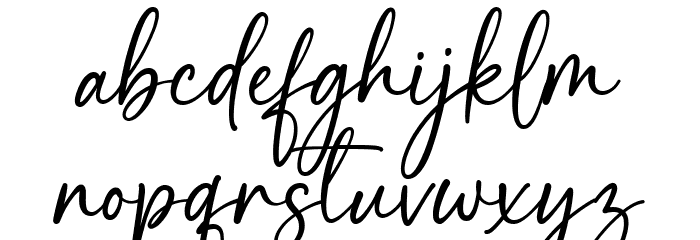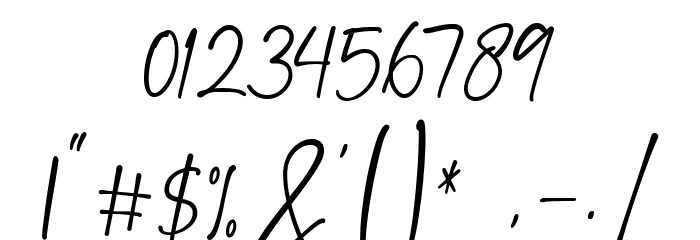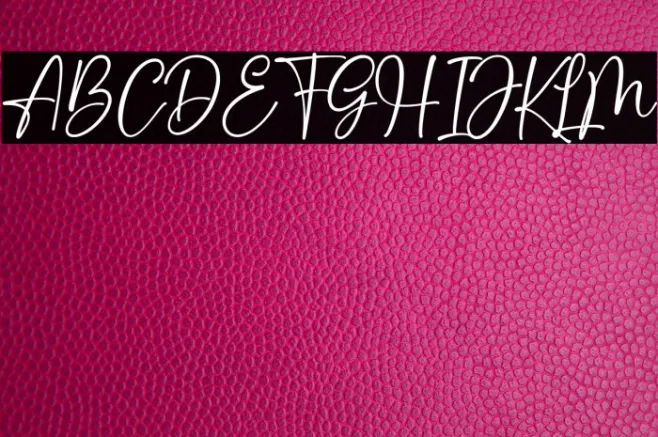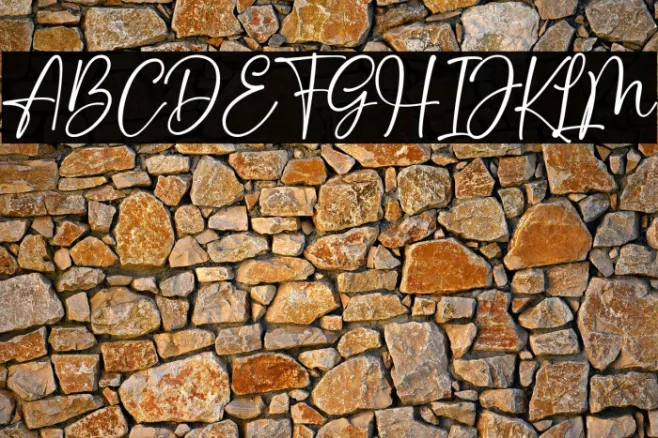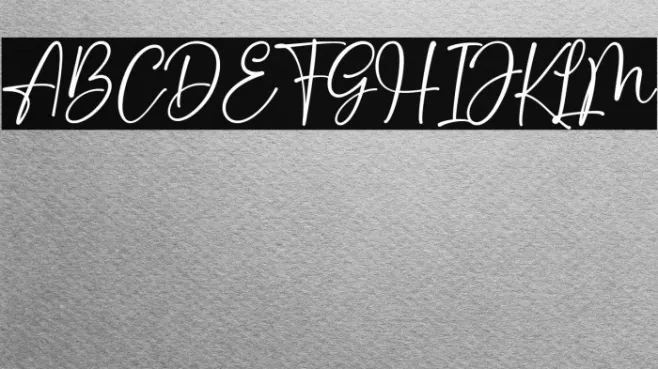
Strong Girl Font
This font exudes a lively and dynamic energy with its fluid, handwritten style. The letters are elegantly connected, giving it a cohesive and flowing appearance. The uppercase characters are bold and slightly elongated, while the lowercase letters maintain a consistent rhythm and balance. The numerals and special characters are crafted with the same attention to detail, ensuring uniformity across the typeface. Its playful yet sophisticated look makes it versatile for various design needs.
A lively, handwritten font with fluid, connected letters and a playful yet sophisticated style.
- Font: Strong Girl
- Proposed Projects: Ideal for wedding invitations, greeting cards, branding projects, and social media graphics.
- Category: Handwritten
- Use Case: Logos, Invitations, Social Media